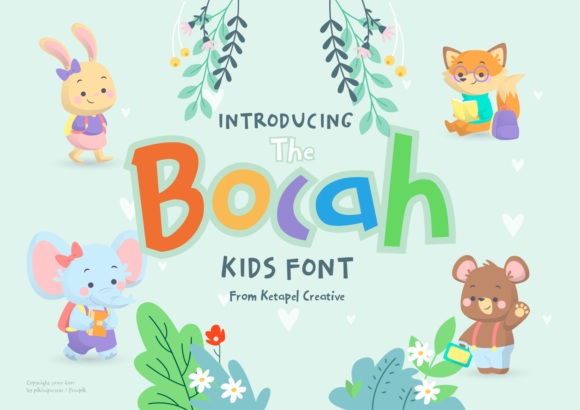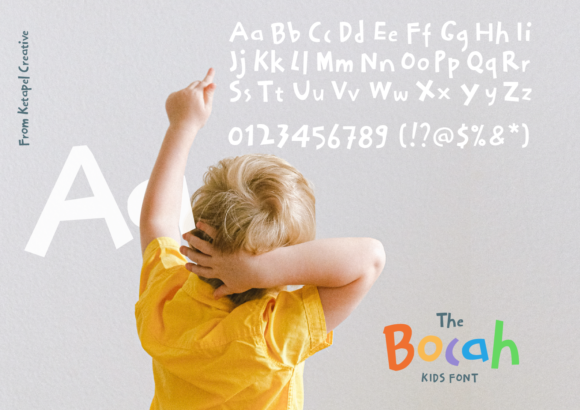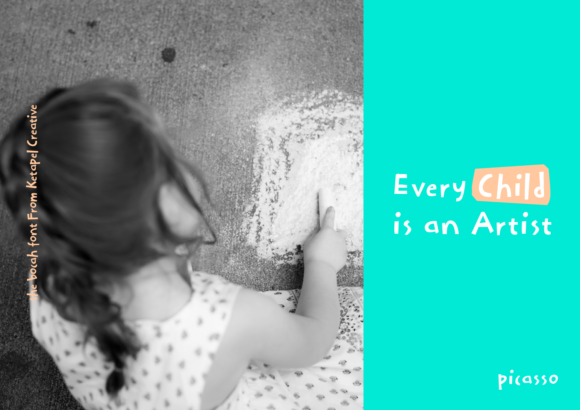
HomePersonal Use FreeThe Bocah Personal Use Free The Bocah FacebookTwitterPinterestWhatsApp 1 of 3 About The Bocah Font The Bocah is a bold and chunky lettered display font. Add this font to your creative ideas and notice how it will make them stand out! DOWNLOAD NOW People also explored Simple Box Font Cynical Font Lodeh Font Kuta Beach Font January Font Freedom Casablanca Font Ello Collection Font Jewelled Font Malica Font 135 0 TagsThe Bocah Font Previous articleSimpleNext articleColombia LEAVE A REPLY Cancel reply Comment: Please enter your comment! Name:* Please enter your name here Email:* You have entered an incorrect email address! Please enter your email address here Website: Save my name, email, and website in this browser for the next time I comment. Personal Use Free Splatter Splash Personal Use Free Read more about this font Kidly Personal Use Free Read more about this font Knox Personal Use Free Read more about this font Anggraini Personal Use Free Read more about this font BLOG Using Fonts in Digital Marketing: Tips to Strengthen Your Brand Identity In the realm of digital marketing, every visual element plays a crucial role in shaping a brand's identity, and fonts are no exception. The... Exploring Font Trends To increase your work productivity, choose the most readable fonts. Best Fonts for T-Shirt Design – Top 2025 Picks